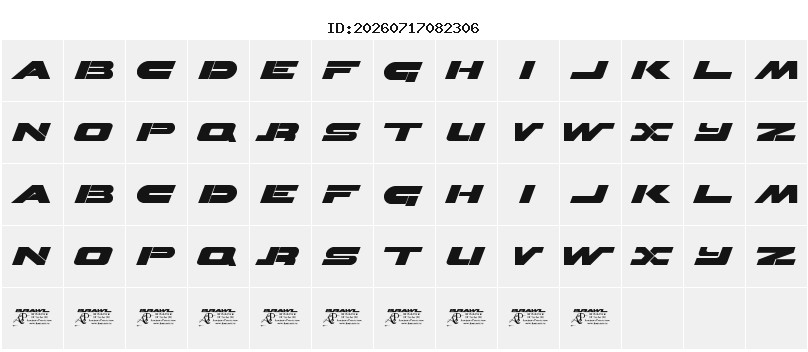
• Font Name: Brawl
About Brawl.ttf
Brawl.ttf is a modern, elegant sans-serif font designed for ultimate readability and visual harmony. Perfect for branding, headlines, web design, and print materials.